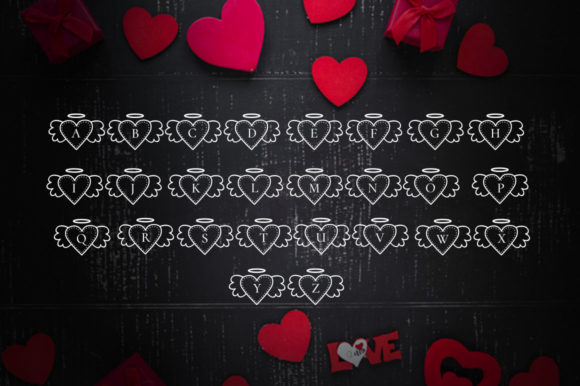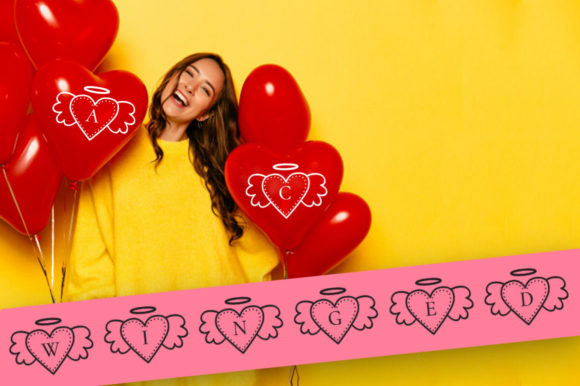
About Winged Heart Font
The Winged Heart is a beautiful and romantic monogram font that instantly conveys a sense of love and affection. With its winged hearts and halos, this font has the potential to create a design that is both visually appealing and emotionally resonant.
The Winged Heart monogram font is an incredible asset to any designer’s font library, with its tremendous versatility and wide range of motifs. With its winged hearts and halos, this font can be used in a wide range of projects, from Valentine’s Day greetings and invitations to wedding invitations and love notes. Whether you’re designing a stationery set for a romantic picnic or a greeting card for a wedding anniversary, this font is the perfect way to add a touch of love and affection to your design.
The Winged Heart monogram font is also an obvious choice for any designer looking for a visually striking and memorable font. With its winged hearts and halos, this font has the potential to create a design that stands out from the crowd. Whether you’re designing a logo for a wedding venue or a card for your significant other, these winged hearts and halos are sure to create a design that is both visually appealing and emotionally resonant.
One of the best ways to use The Winged Heart monogram font is to create a design that expresses the feeling of love and affection. Whether you’re designing a Valentine’s Day greeting or a romantic wedding invitation, these winged hearts and halos are the perfect way to add a touch of love and affection to your design.
In addition, the winged hearts and halos in The Winged Heart monogram font are designed to be elegant and beautiful, without being overbearing or distracting. Whether they are delicate and graceful, or bold and ornate, these winged hearts and halos have the potential to create a design that is both visually appealing and easy to read.
So if you’re looking for a visually striking and memorable font that can be used in a wide range of love-themed projects, The Winged Heart monogram font is the ideal choice. With its winged hearts and halos, this font has the potential to create a design that stands out from the crowd and conveys a sense of love and affection.